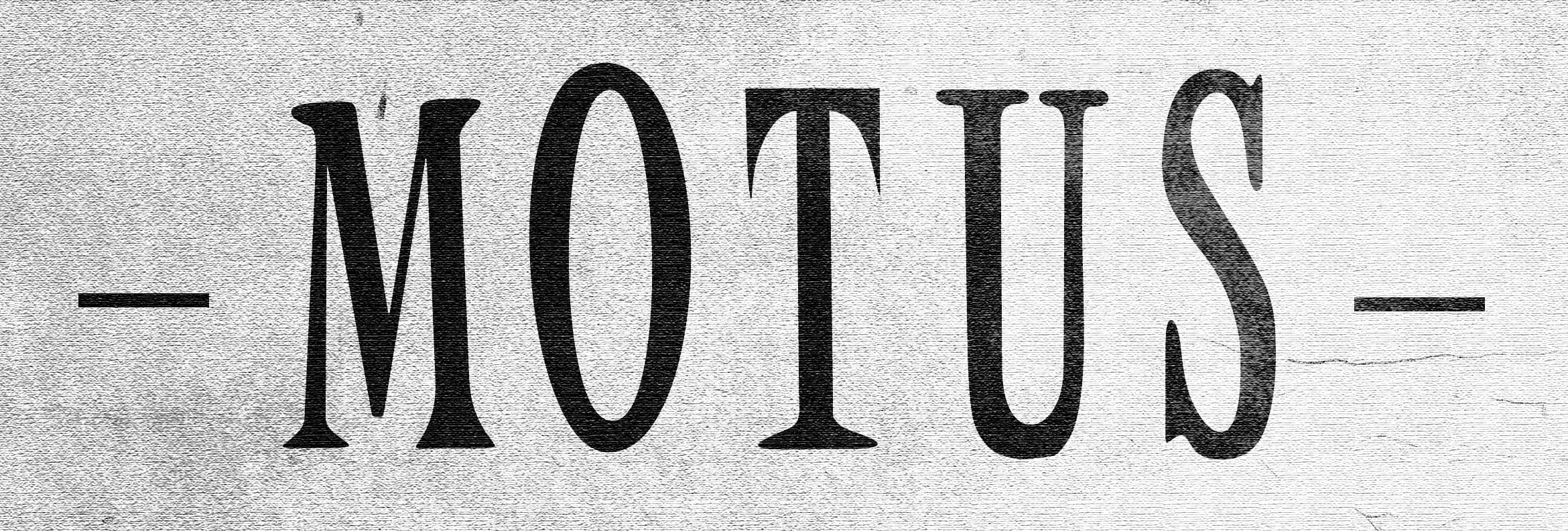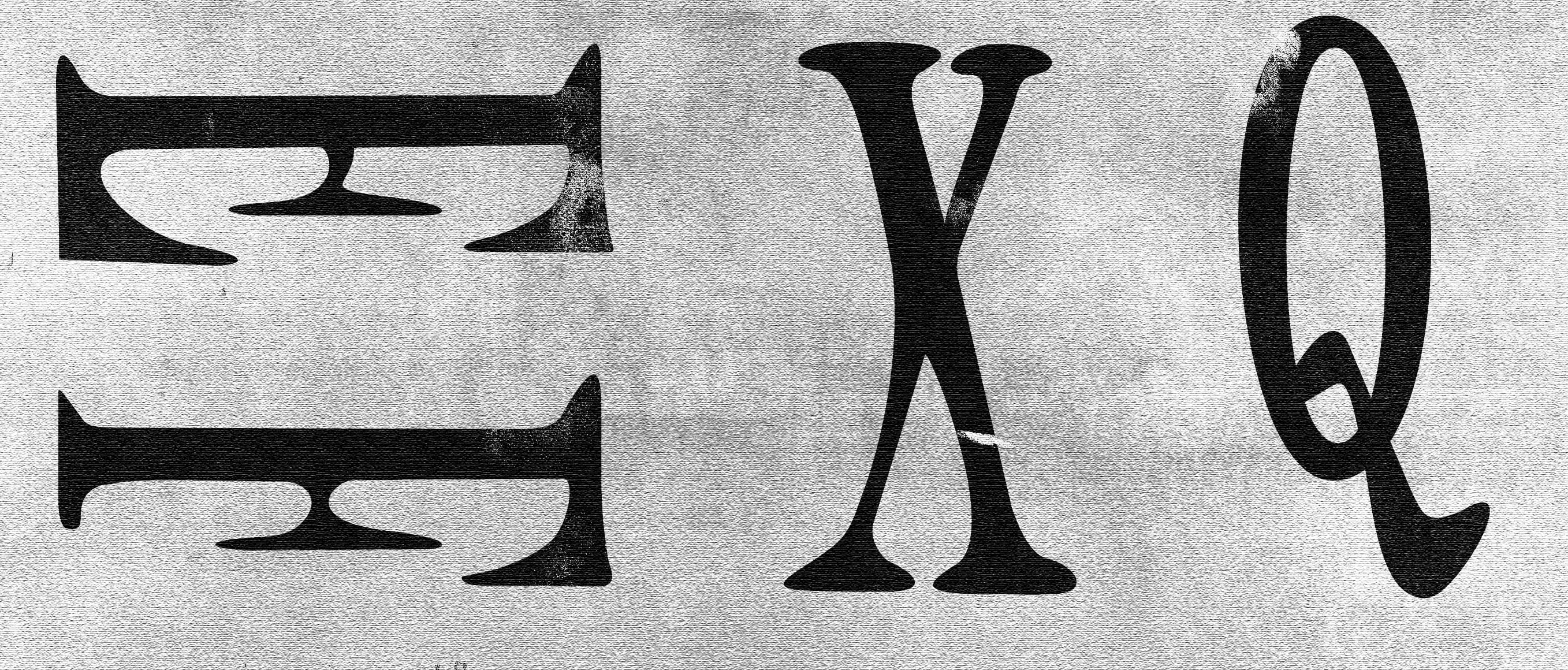
Inspired by Theatre Peckham, Motus combines Tradition and youth. The font contains classic elements such as the serifs and is paired with unique curves and a slight cartoon style. The typeface demonstrates that tradition and youth can work together.
Motus
By Paddy Norton
Inspired by Theatre Peckham, Motus combines Tradition and youth. The font contains classic elements such as the serifs and is paired with unique curves and a slight cartoon style. The typeface demonstrates that tradition and youth can work together.
Paddy Norton